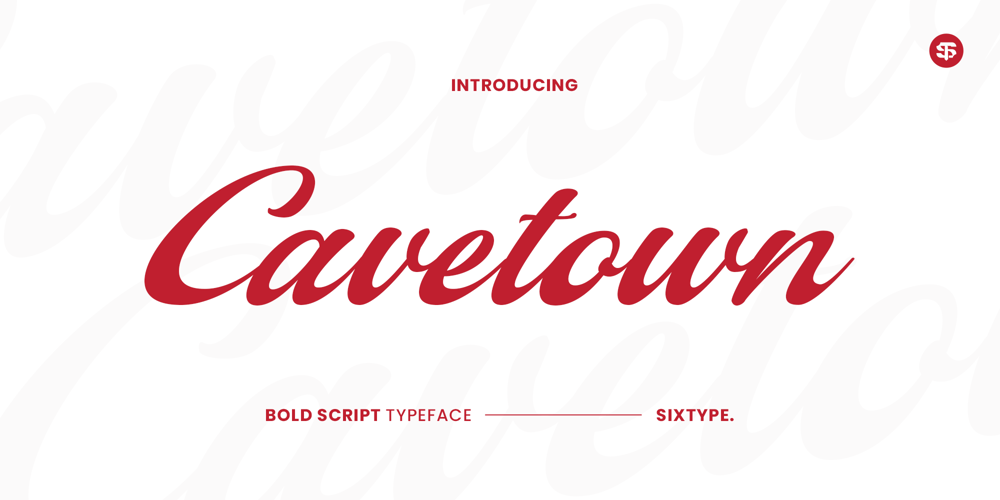
Cavetown Font Family was designed by Mhd Husaini and published by Sixtype Foundry. Cavetown contains 1 styles and family package options. Cavetown is a bold script font with a touch of underground grit, perfect for adding personality to designs. It combines playful and edgy elements reminiscent of hand-painted signage, making it versatile for various creative projects.